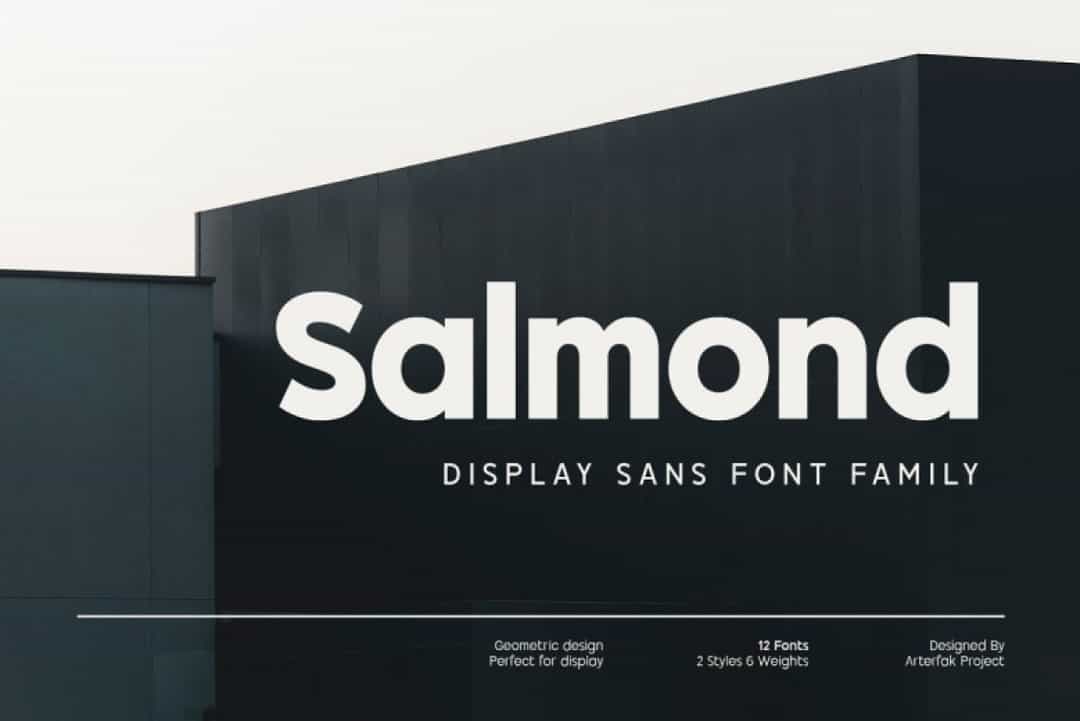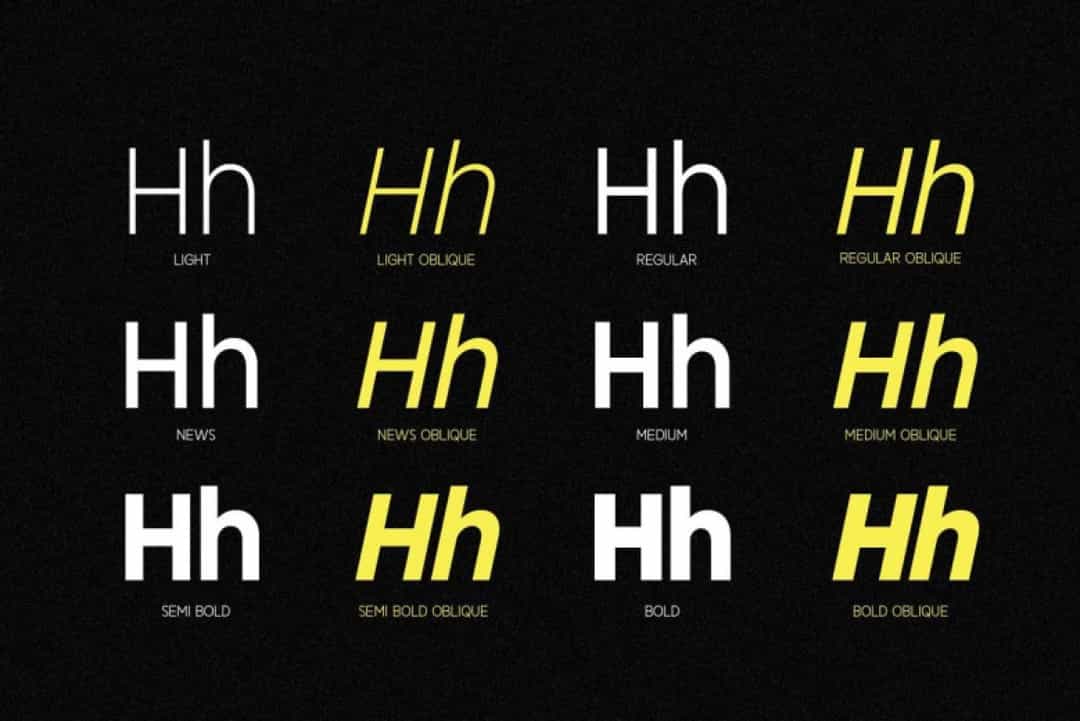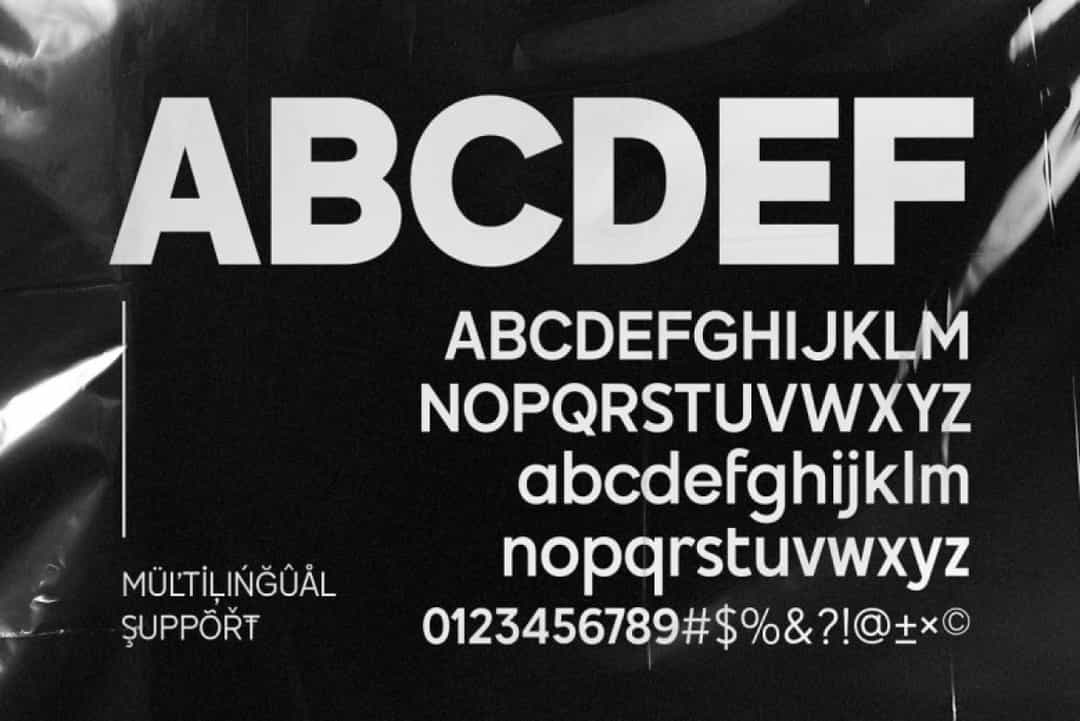
Salmond is an elegant geometric sans serif font with a clean letterspace and an eye-catching aesthetic. Featuring six weights – Light to Regular Medium News Semibold Bold which can also be combined with Oblique styles as well as multilingual support – Salmond boasts a timeless charm that makes an impressionful statement about itself.